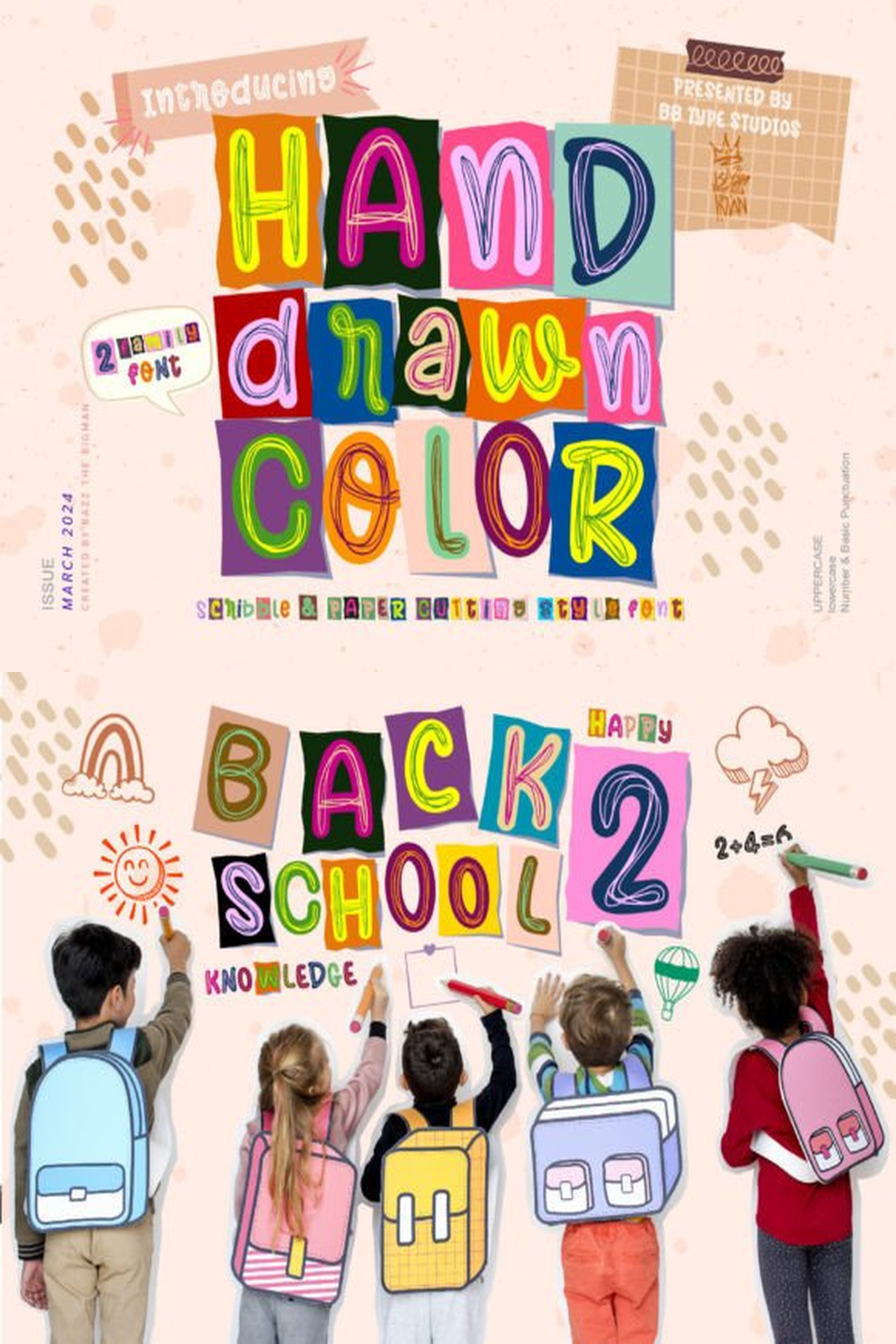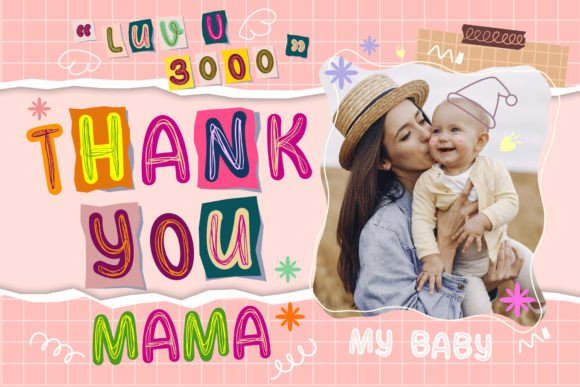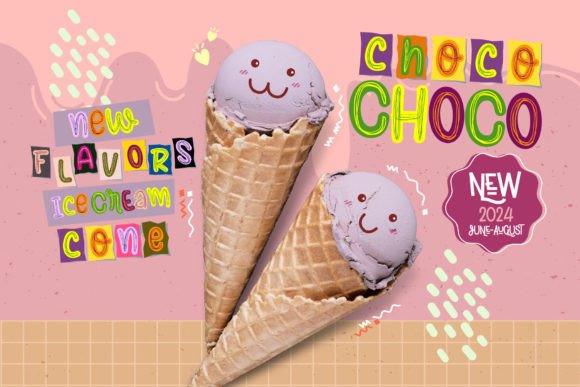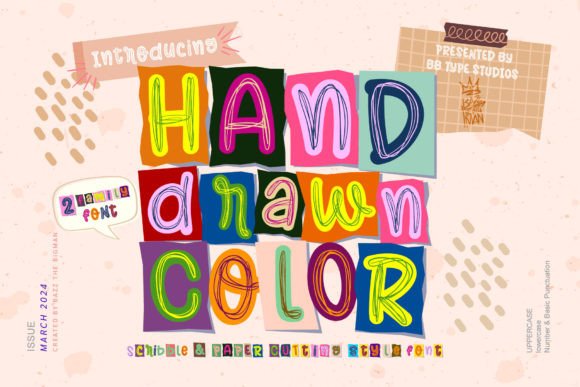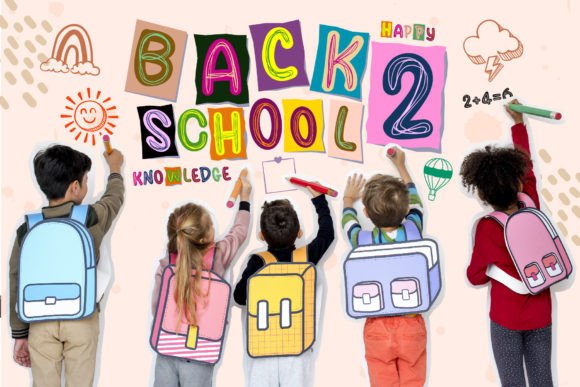
Hand Drawn Color Font
About the Hand Drawn Color Font
We are excited to introduce Hand Drawn Color Font, a must-have typeface for any serious designer. Hand Drawn Color is a 2 color font family, a playful typeface that features a hand-drawn, scribbled design, making it a great choice for designs aimed at children or anyone looking to add a touch of playfulness to their project. This font would work well for a variety of designs, such as book covers, posters, invitations, and more.
Its playful, slightly irregular forms make it ideal for headlines, short text blocks on posters or packaging, and projects targeting a younger demographic. Avoid using it for body copy or lengthy text; the hand-drawn quality can become difficult to read at smaller sizes. It’s best suited for projects requiring a friendly, approachable feel.
Hand Drawn Color pairs well with clean sans-serif fonts like Open Sans or Lato for a balanced contrast, creating visual harmony without sacrificing the hand-drawn font’s unique character. For a more sophisticated look, consider pairing it with a classic serif like Garamond or a slightly more geometric sans-serif such as Montserrat.
The font’s overall personality is undeniably cheerful and informal. Brands focusing on children’s products, crafts, or casual entertainment would find it particularly effective.